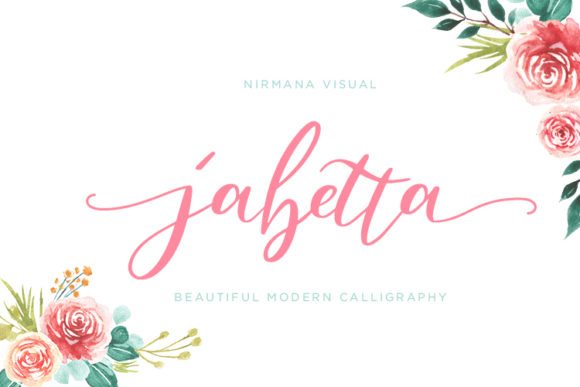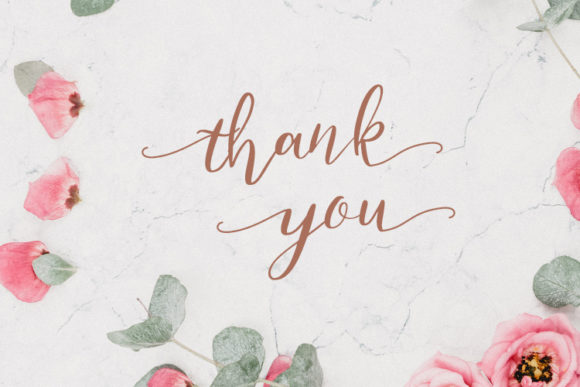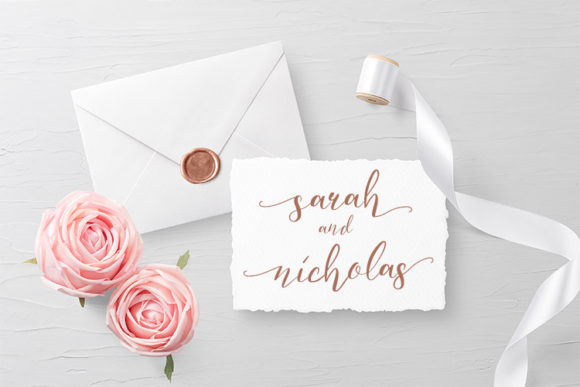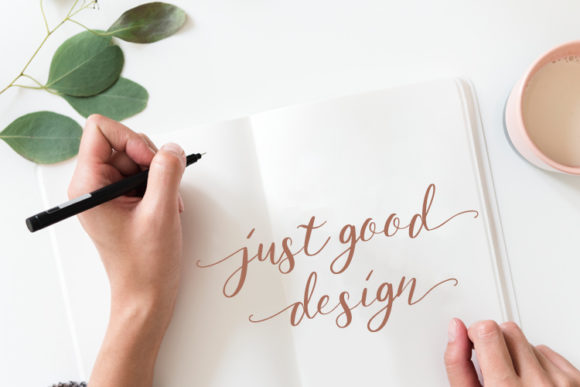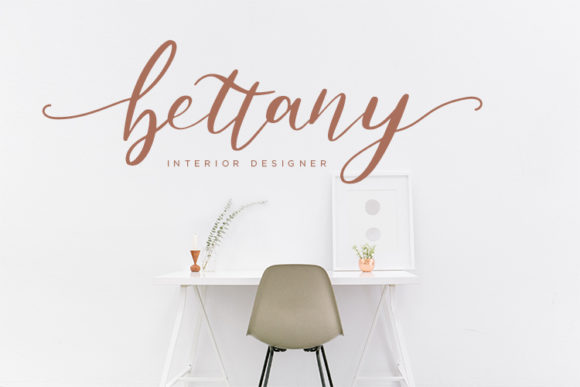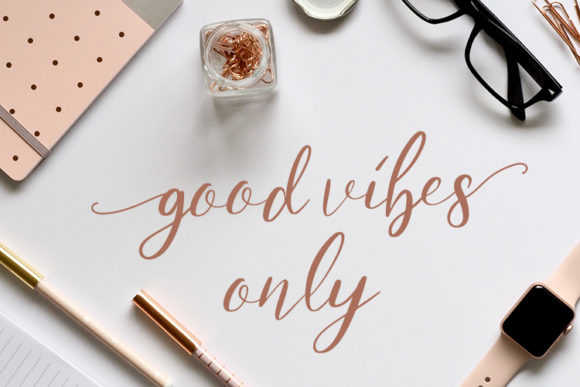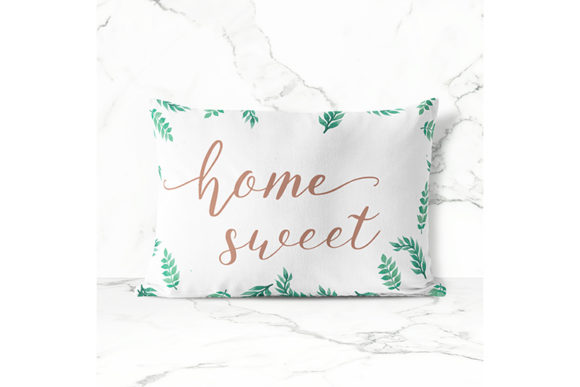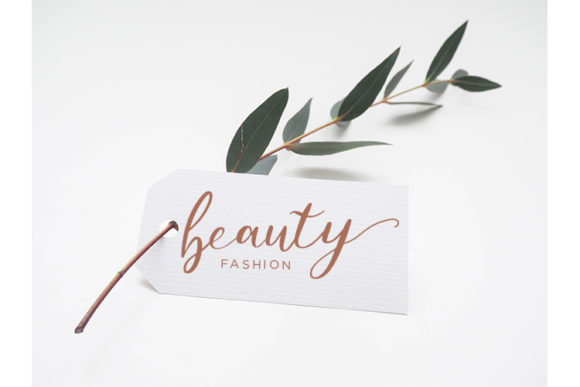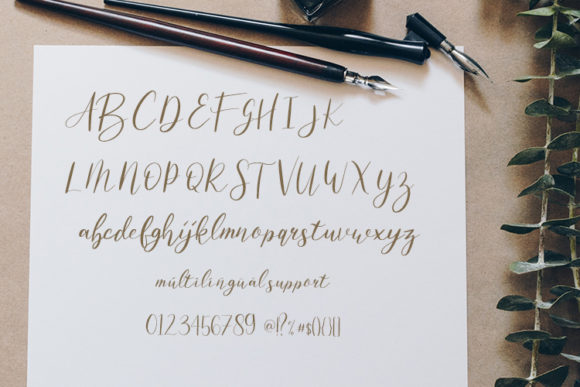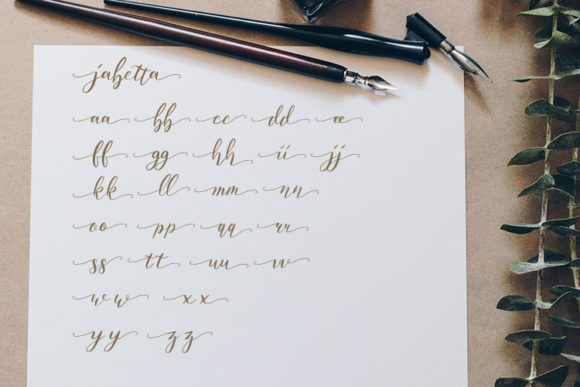
Jabetta Font
About Jabetta Font
Jabetta is an organic, smooth, and gorgeous dancing font made carefully from the real handwriting. A great choice for a variety of projects!